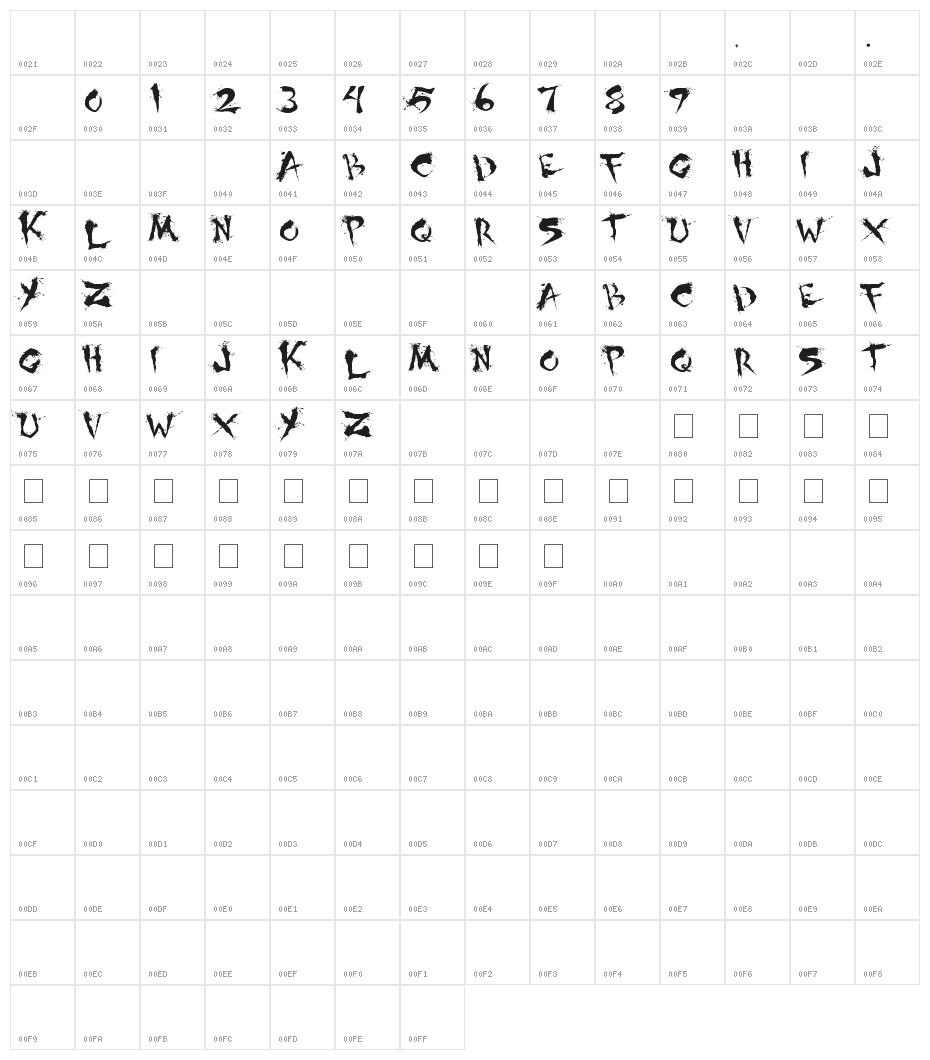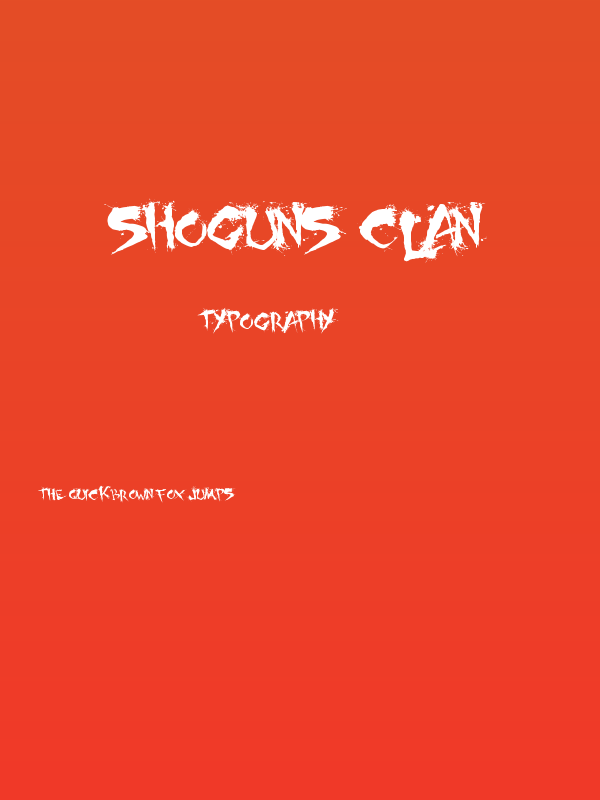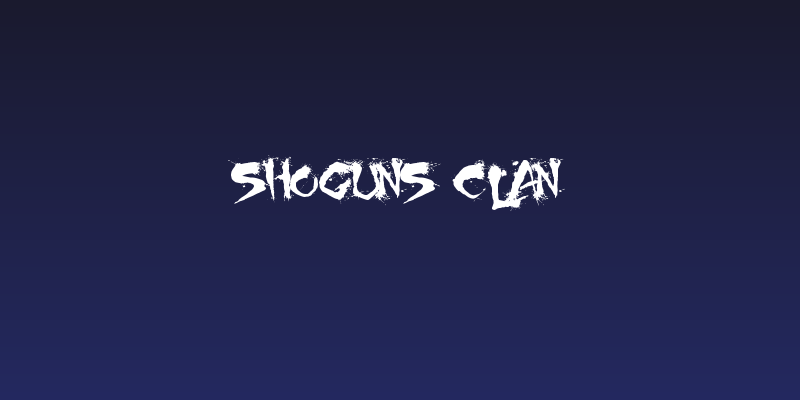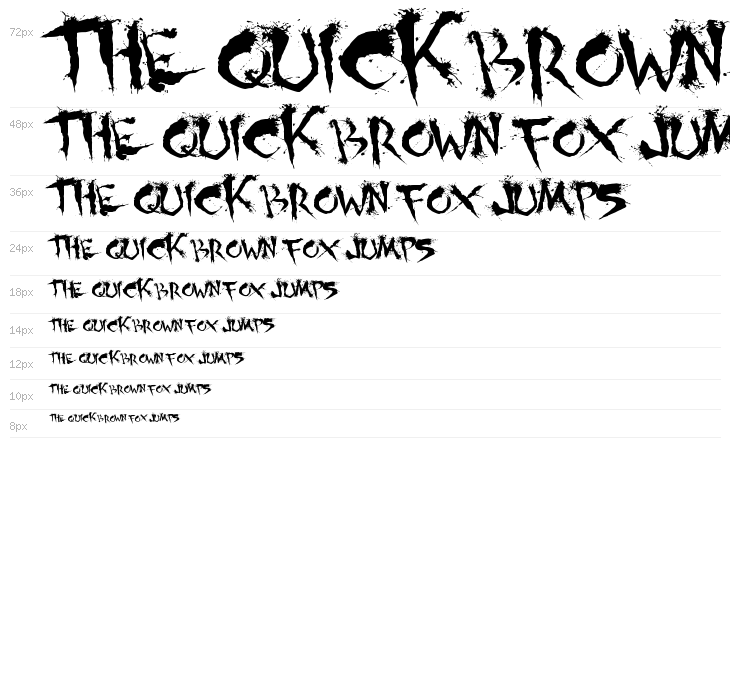
Shoguns Clan Font
Shoguns Clan Description
This font embodies a bold and dynamic style, reminiscent of traditional Japanese calligraphy with a modern twist. The characters are designed with sharp, angular strokes and splattered ink effects, giving them a raw, energetic appearance. The uppercase and lowercase letters maintain a consistent aesthetic, with each character exhibiting unique, artistic flair. The numbers and special characters follow the same design principles, ensuring a cohesive look across all glyphs. This font's distinctive style makes it ideal for projects that require a strong visual impact and a touch of cultural flair.
| Proposed Projects | Ideal for posters, album covers, video game graphics, and branding that requires a bold, artistic touch. |